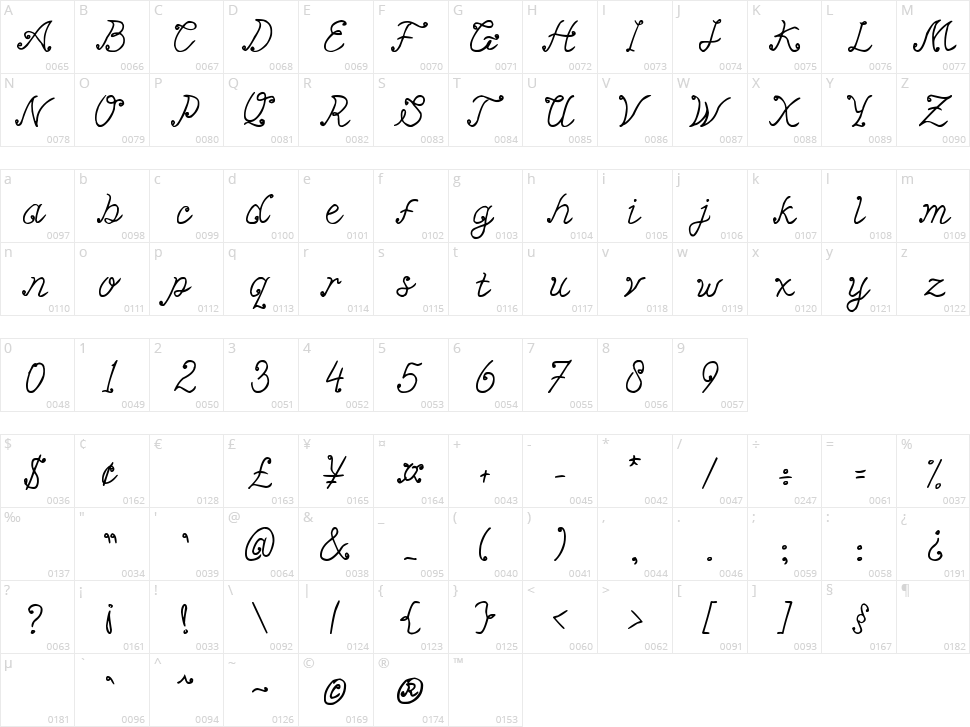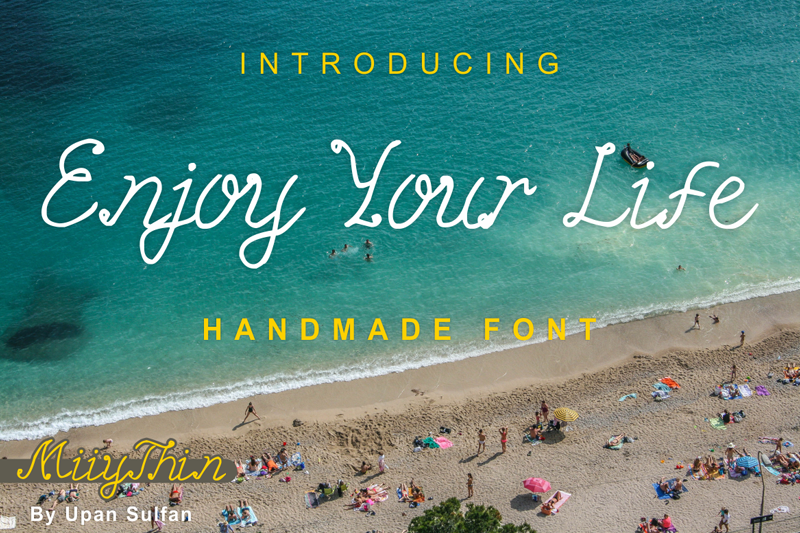
Miiythin
Note of the author MiiyThin is a handmade font, suitable for writing a reading title, magazine, daily notes, and beautiful words.
Designer Name: Upan Sulfan